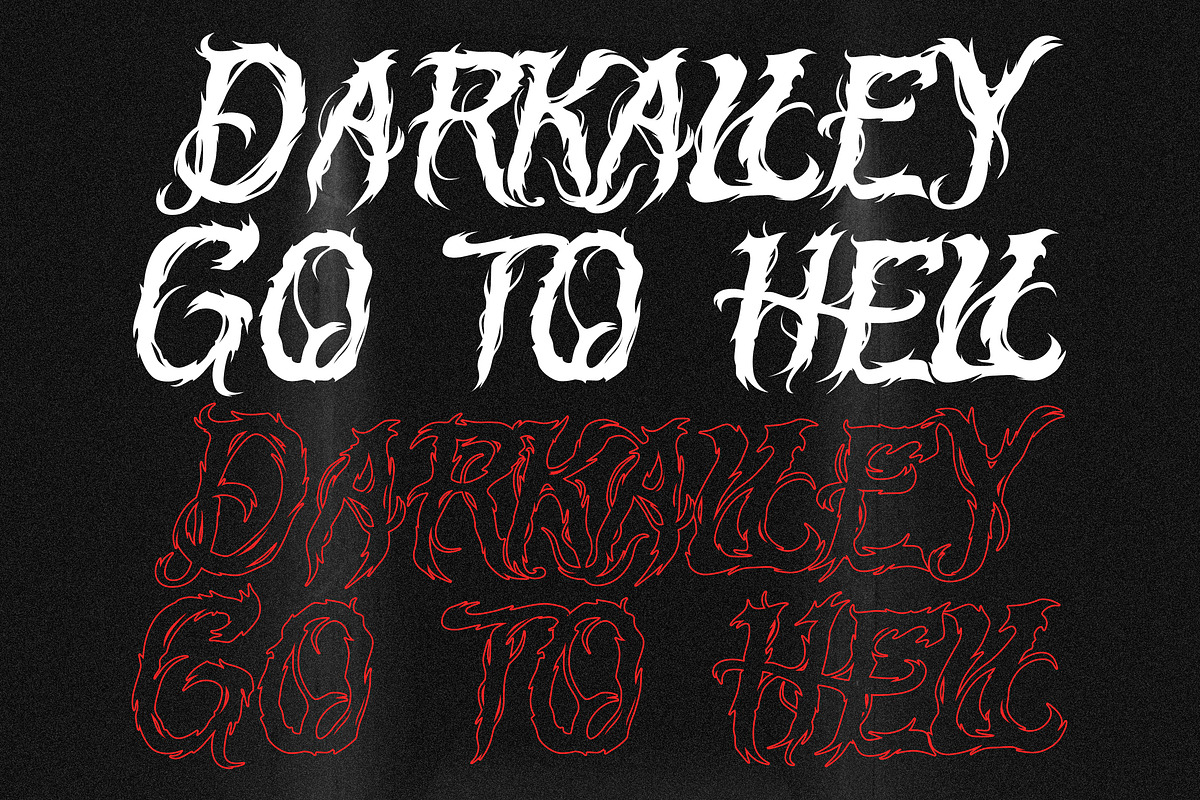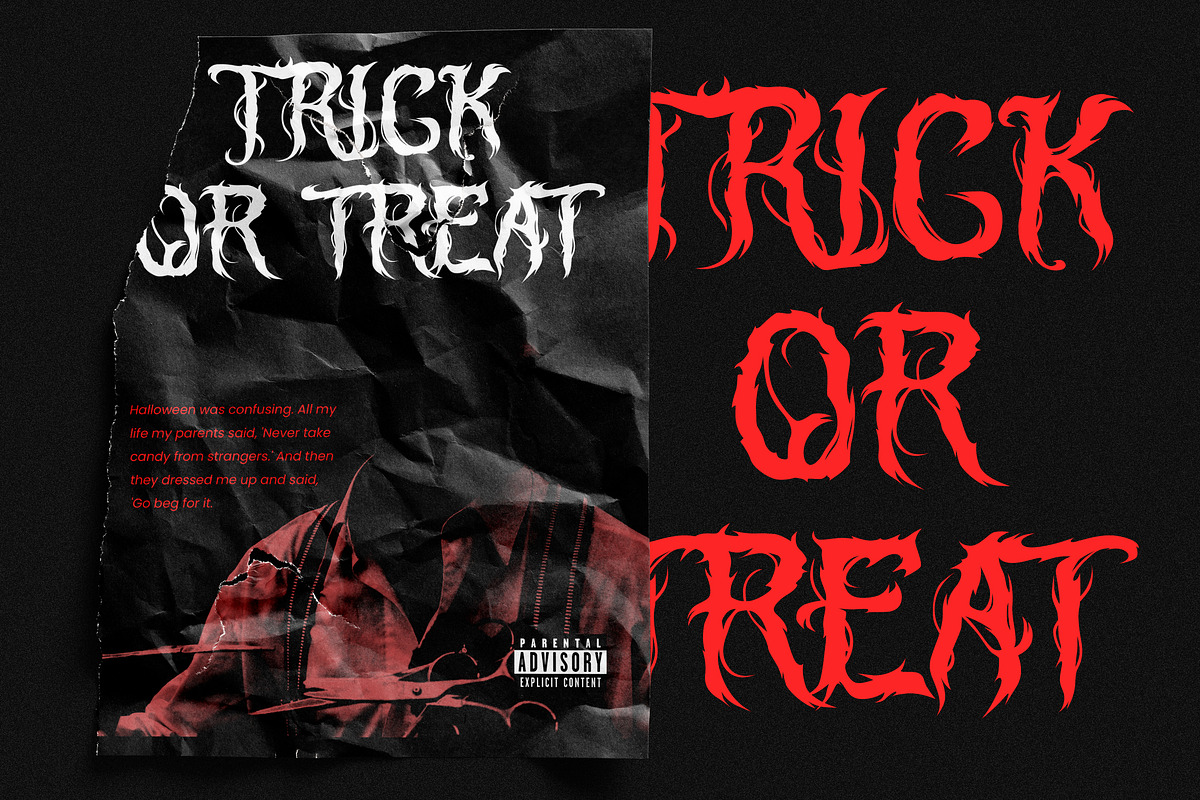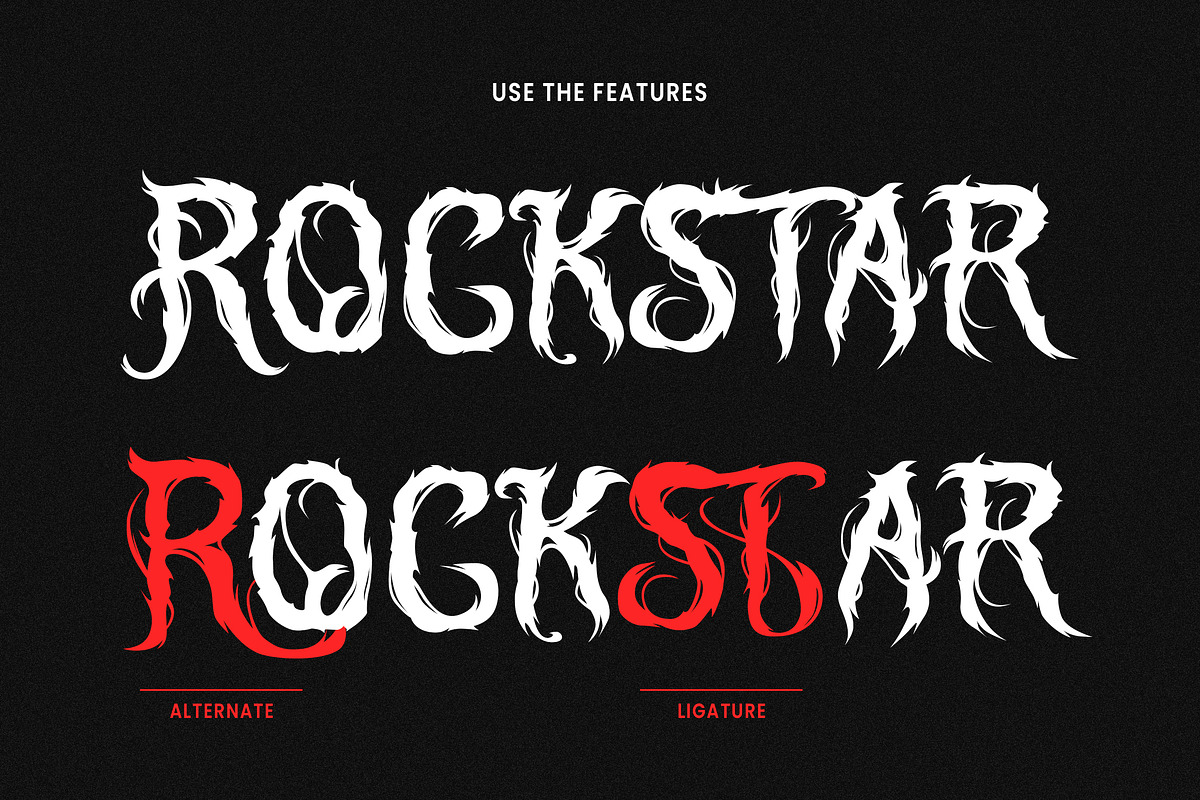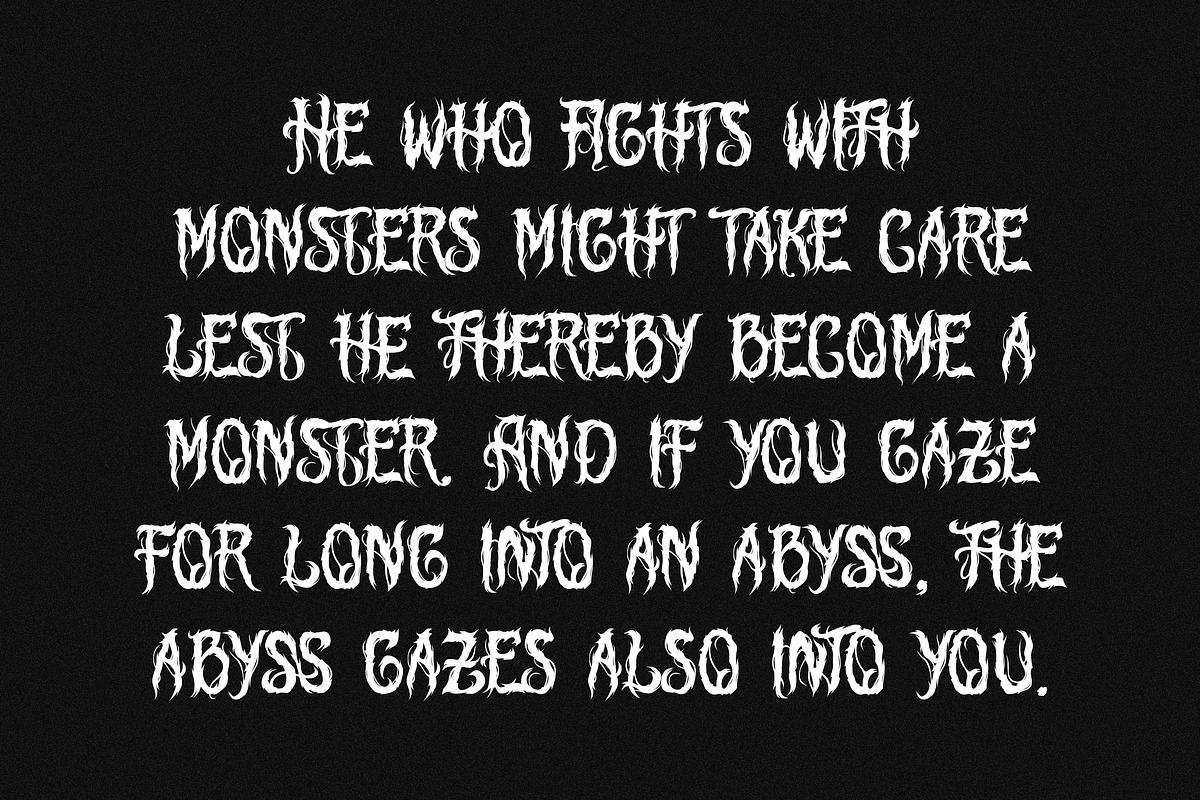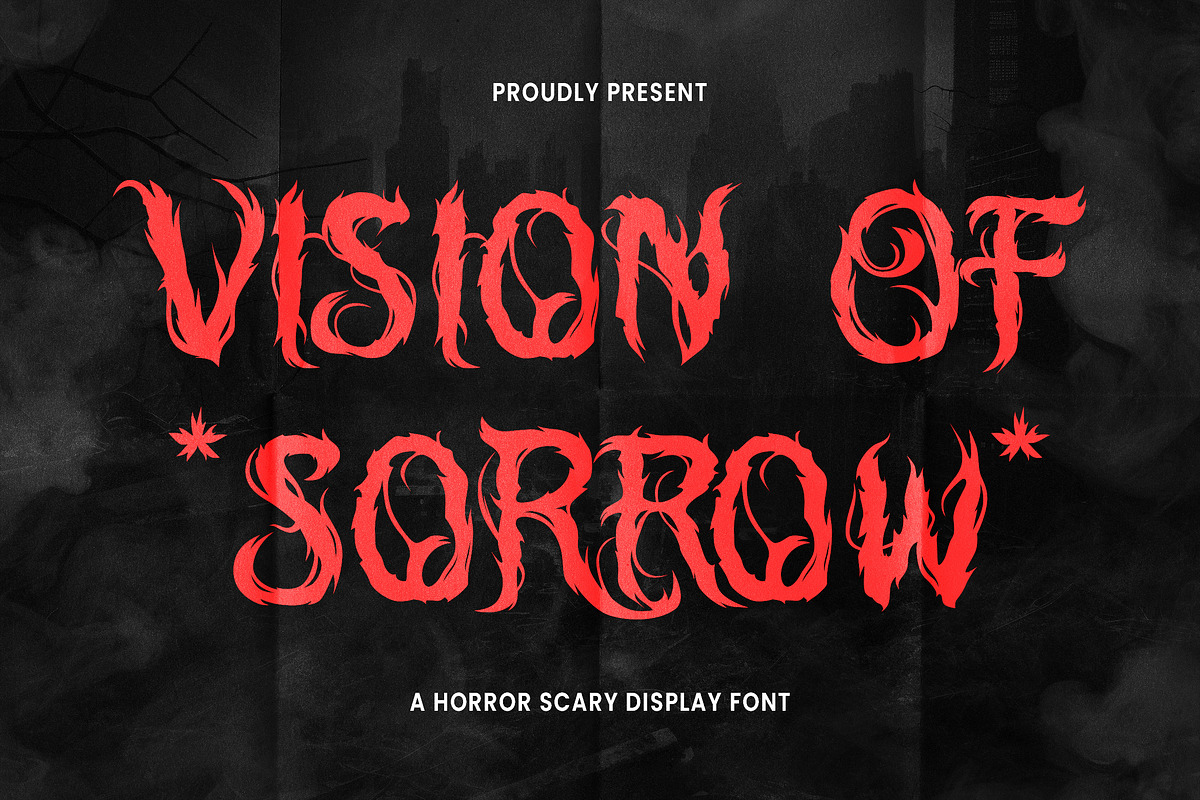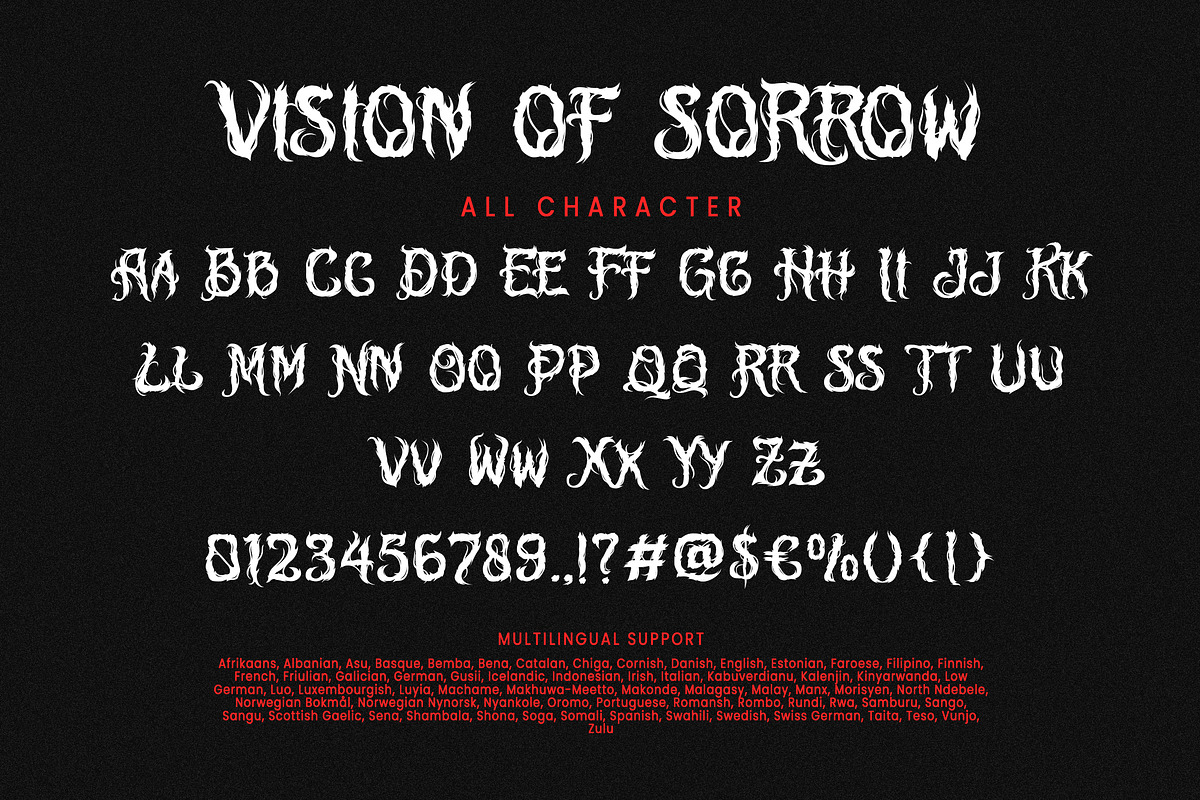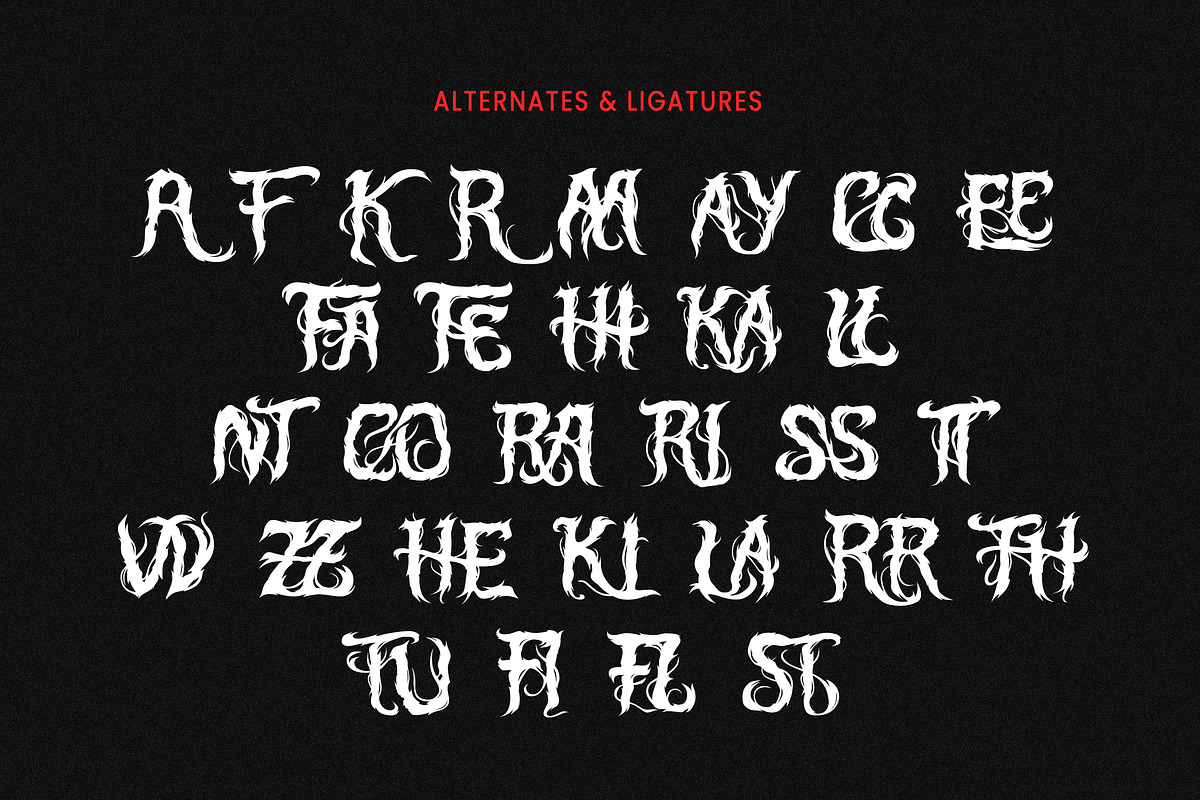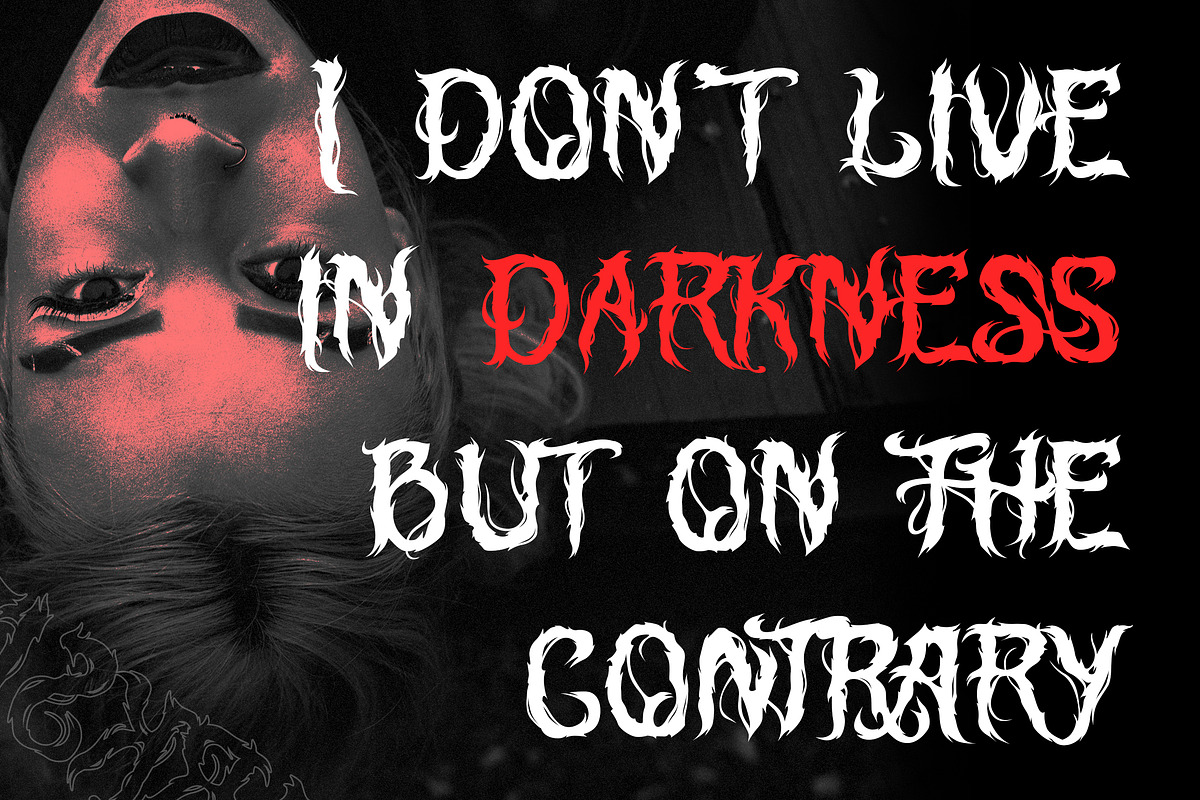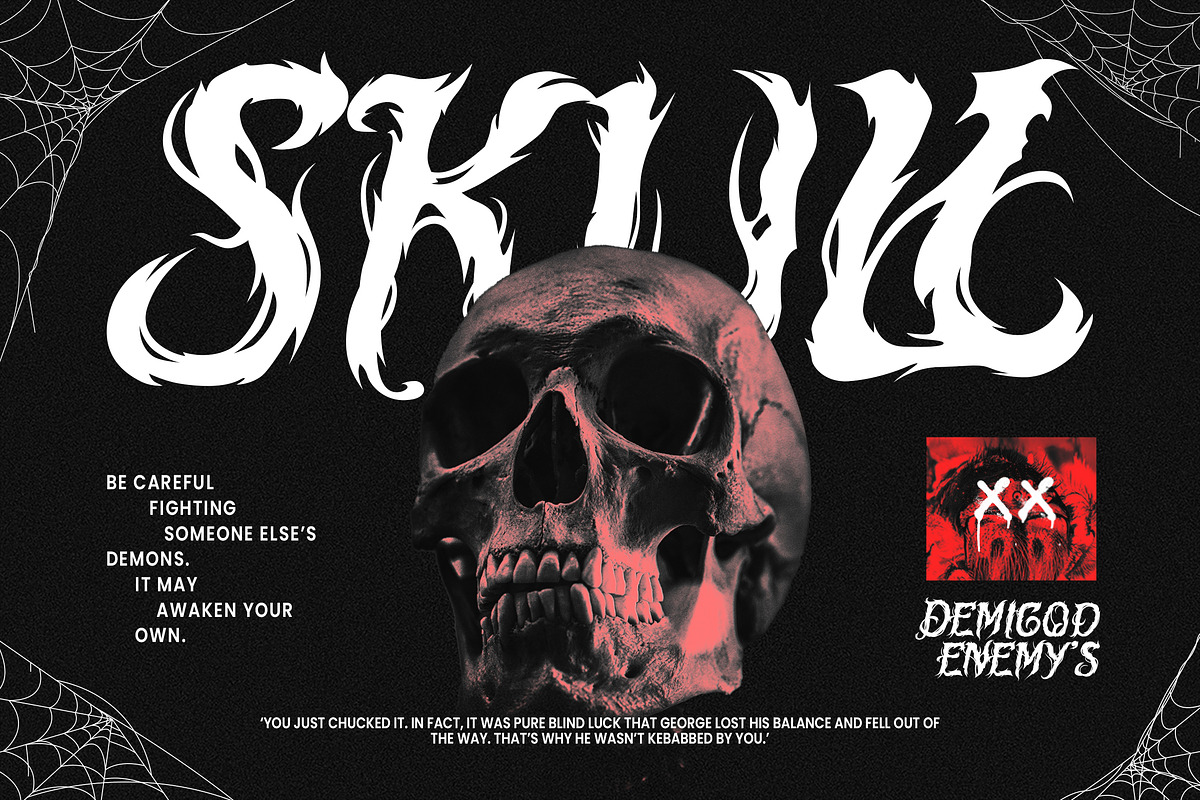
Vision Of Sorrow
VISION OF SORROW is a horror scary font, created to evoke a deep sense of dread. Each stroke of the letter resembles a shadow emerging from the darkness, as if imprinted with the blood ink of a forgotten realm. This font is perfect for reviving the inevitable nightmare, with sharp and irregular details that create a sense of tension and mystery.
VISION OF SORROW is a prime choice for horror themed projects, scary movie posters, or game designs filled with terror. Each letter is like a scream of anguish, depicting the despair, cruelty, and fear wrapped in the endless night. This font invites horror with an aesthetic that will not be easily forgotten.